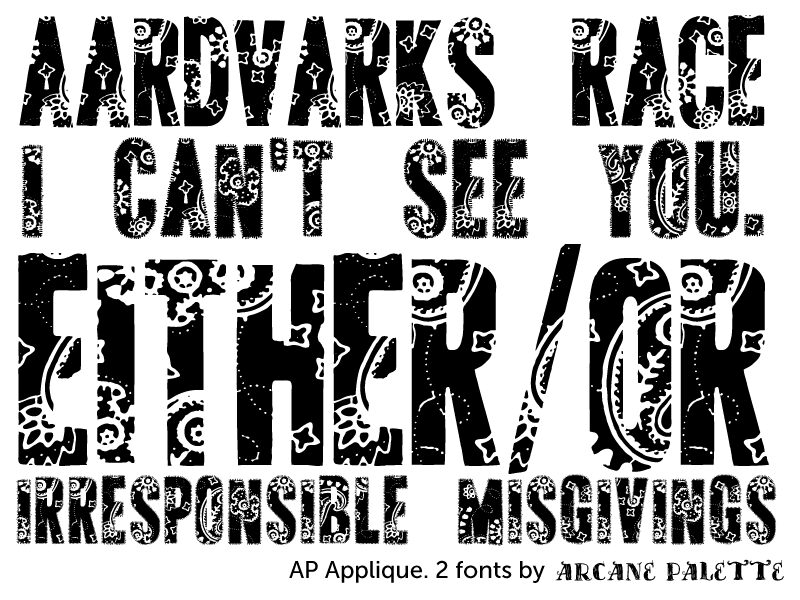
AP Applique Cut by Arcane Palette Creative Design is a free eroded display font built from broad block letters packed with folk-art ornament. Stars, floral curls, dotted borders, and rough chipped patches repeat across the forms and make the lettering resemble layered cut fabric or tooled leather.
The patterning connects directly with Western and craft-inspired illustration. It is especially suited to poster art, festival merchandise, and music packaging, where the letters can function as decorated objects within the artwork. Book covers and children's activity materials can also use its star and flower motifs to build a playful handmade theme throughout.